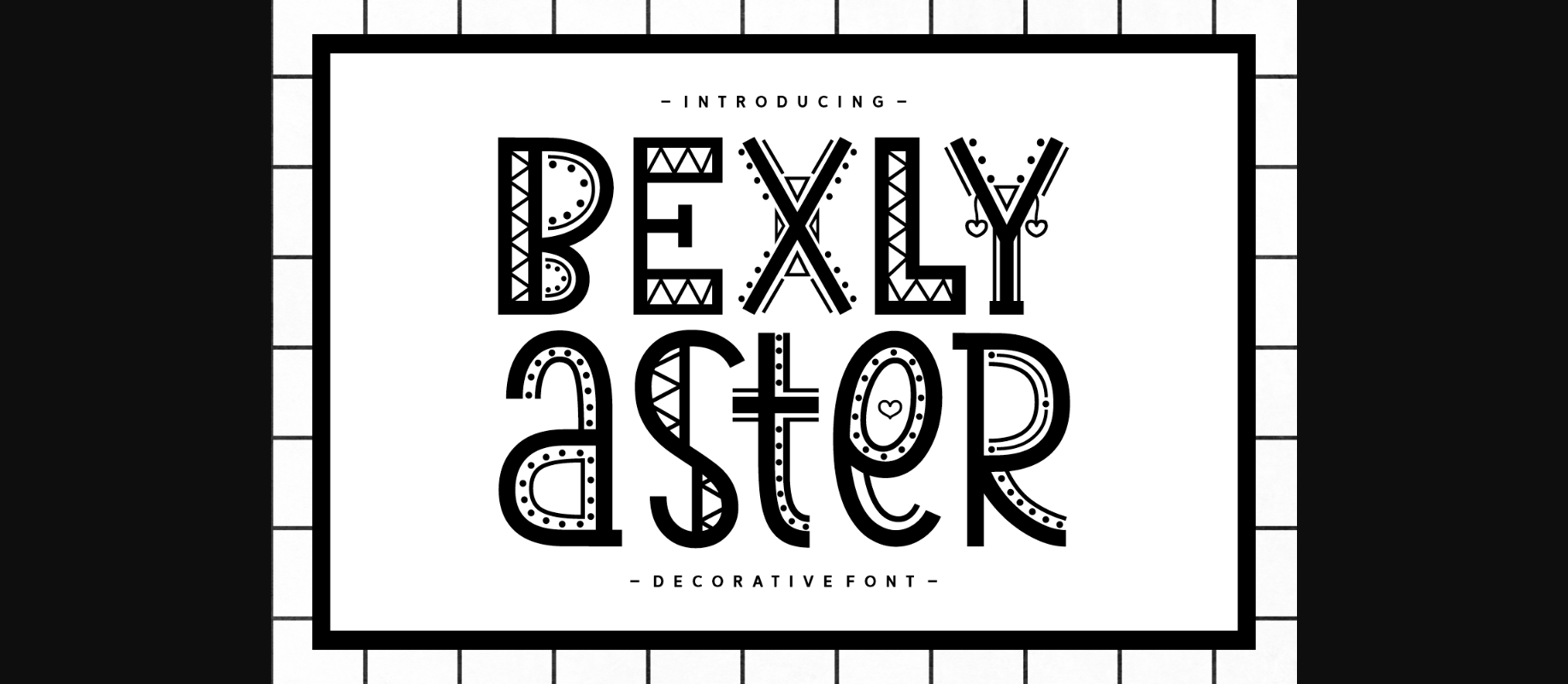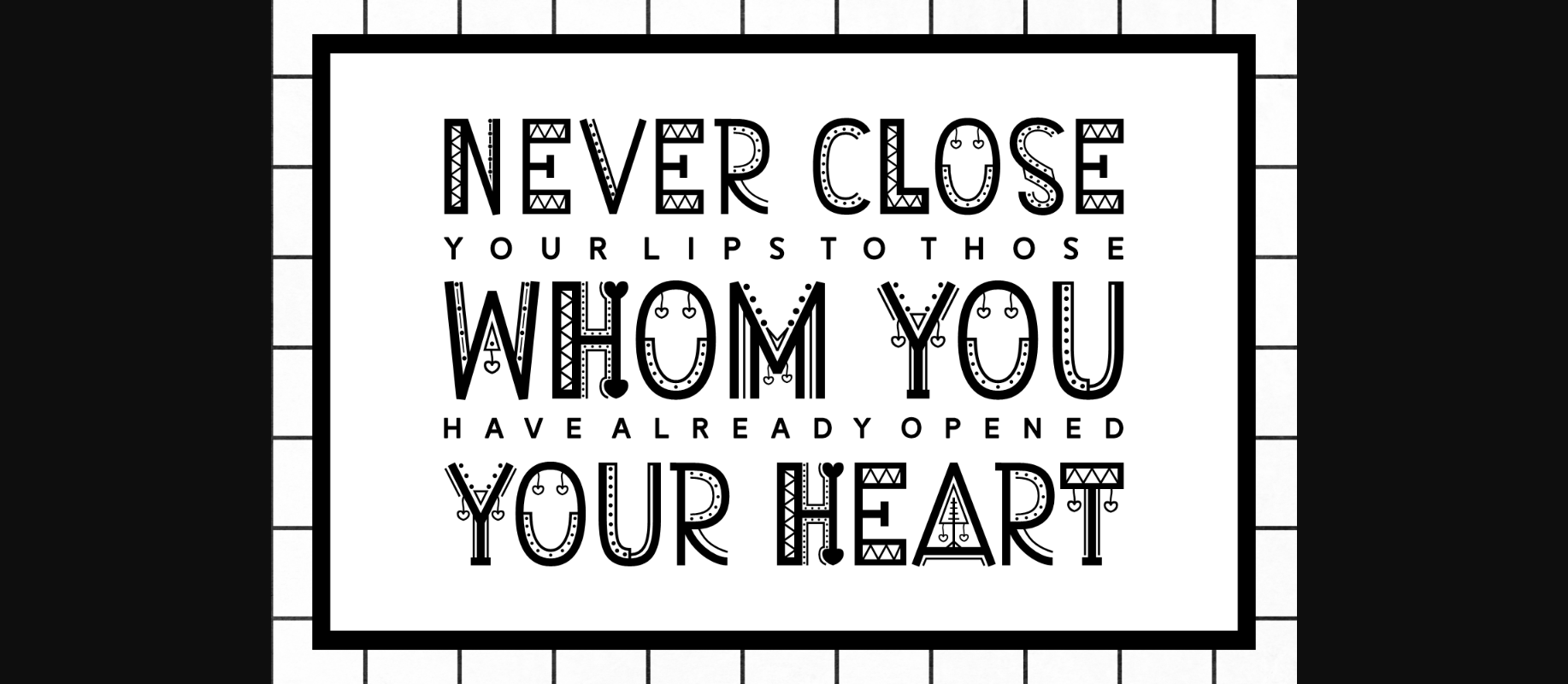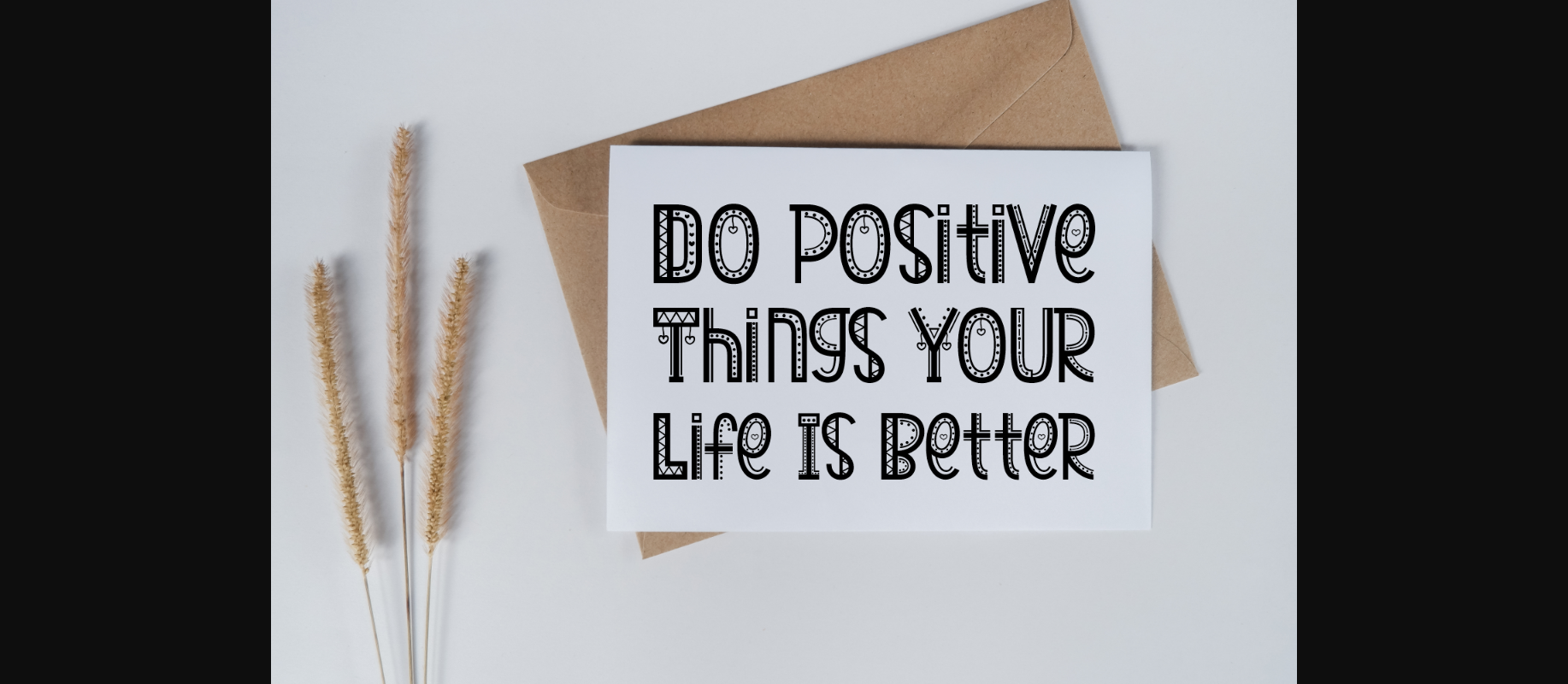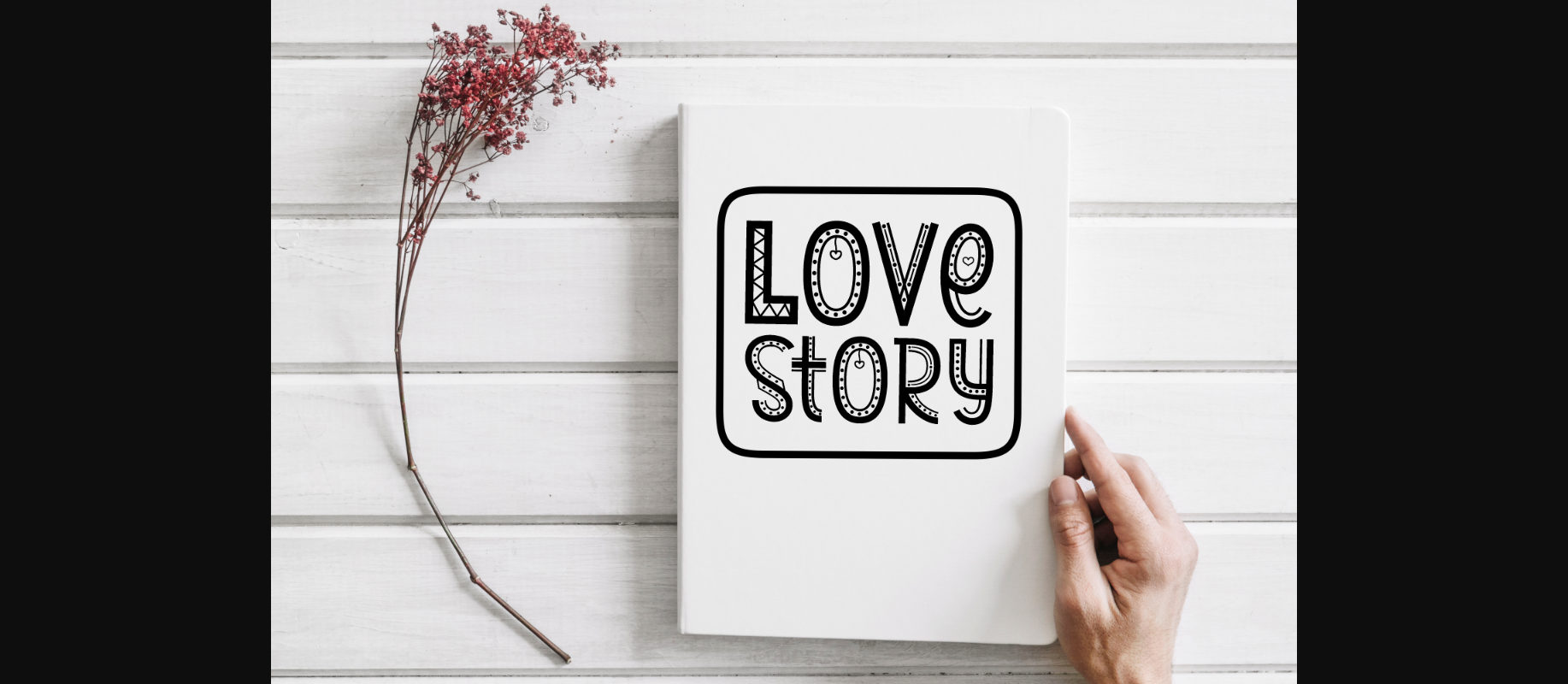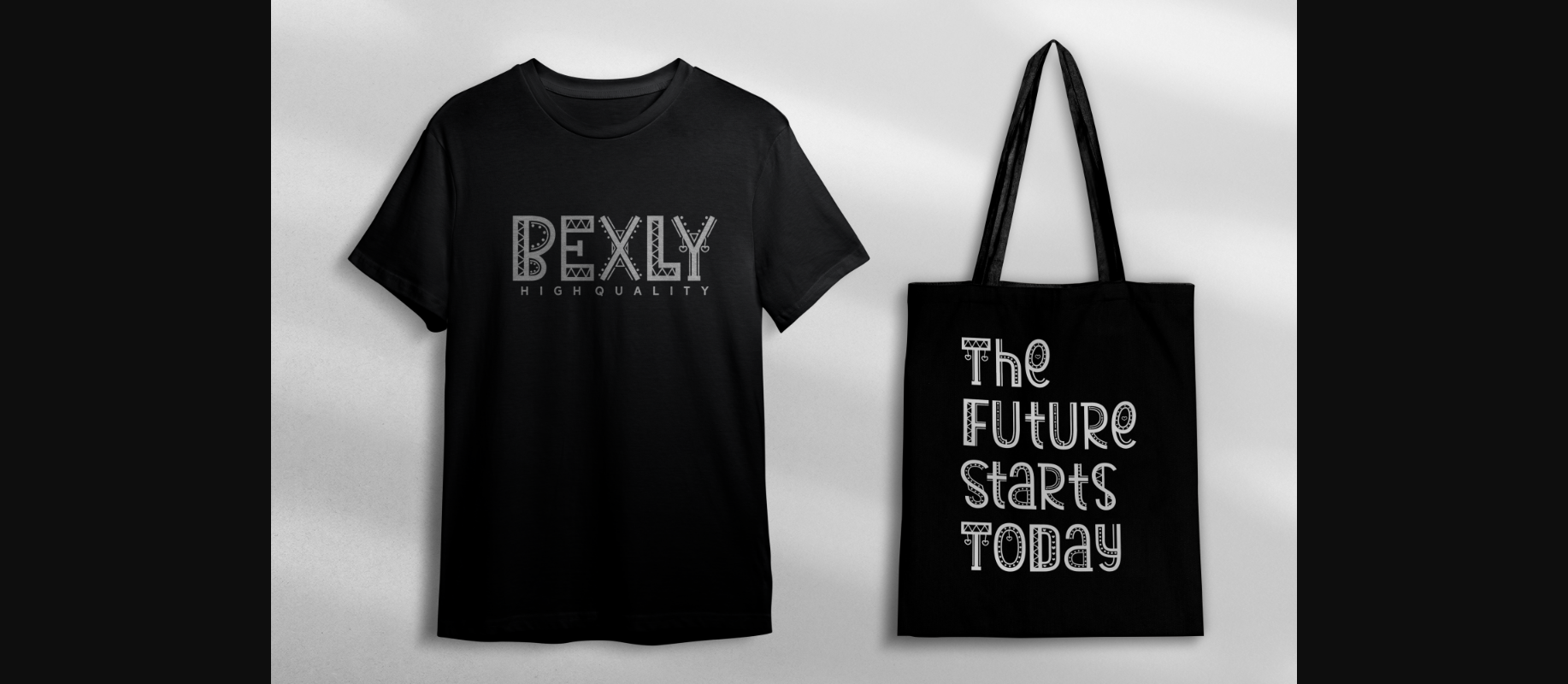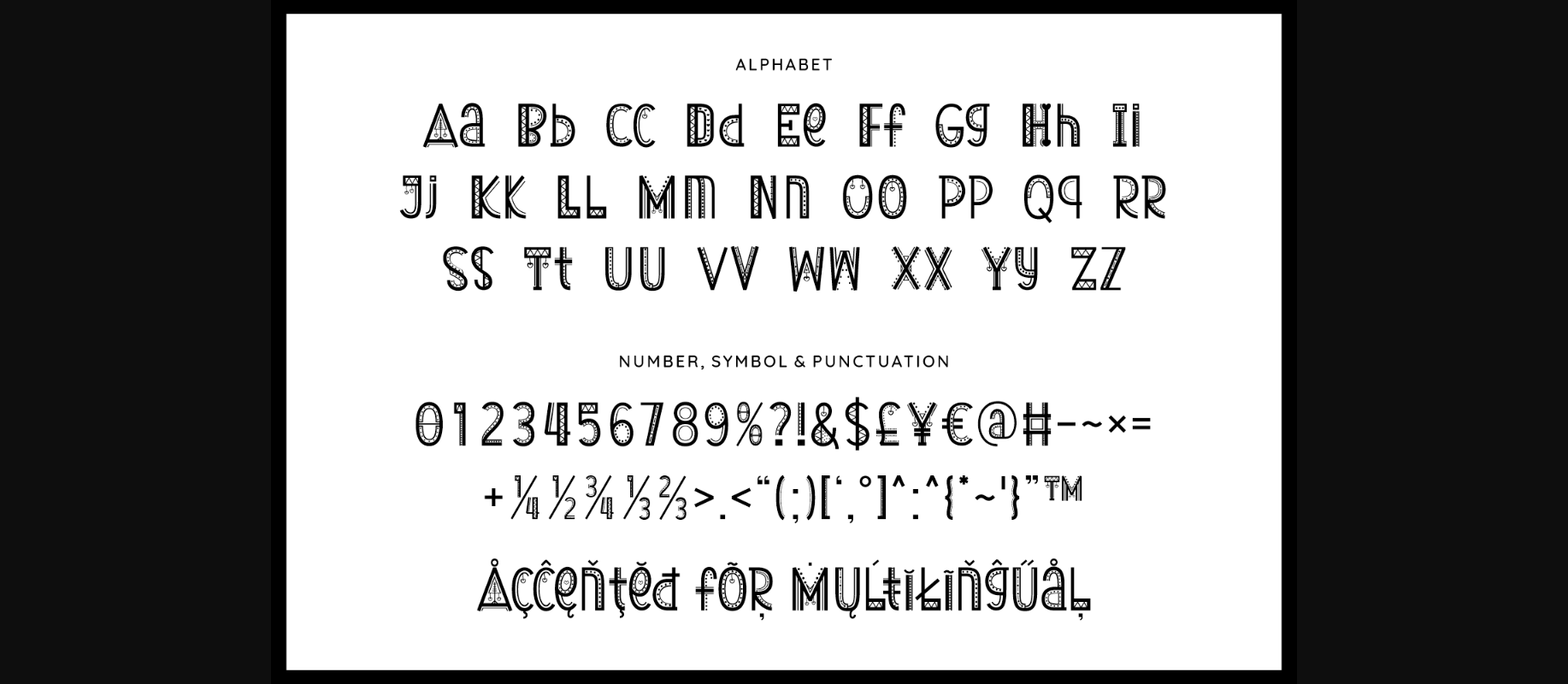
Bexly Aster Font
About Bexly Aster Font
Bexly Aster is a lovely and unique decorative font. Create outstanding typography designs with this playful and stylish font with cute ornamental details! It looks great on fabric prints, book covers, invitations, and many more.